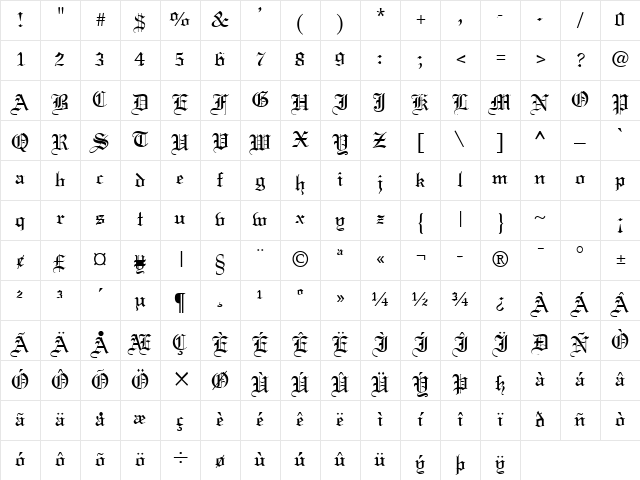
PT Linus Text Normal
Design Context for PT Linus Text
PT Linus Text is a composed and adaptable typeface that performs quietly and consistently across a wide range of design contexts.